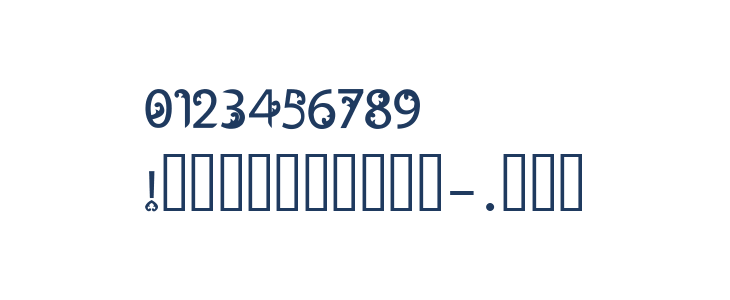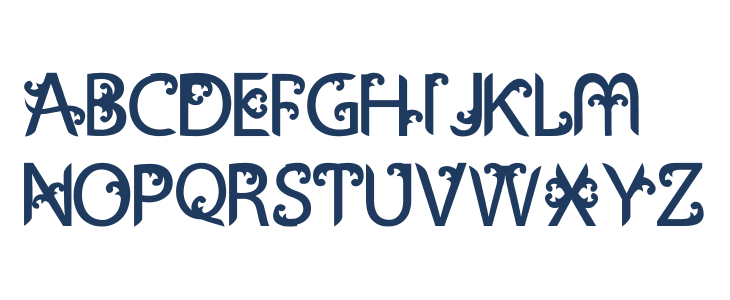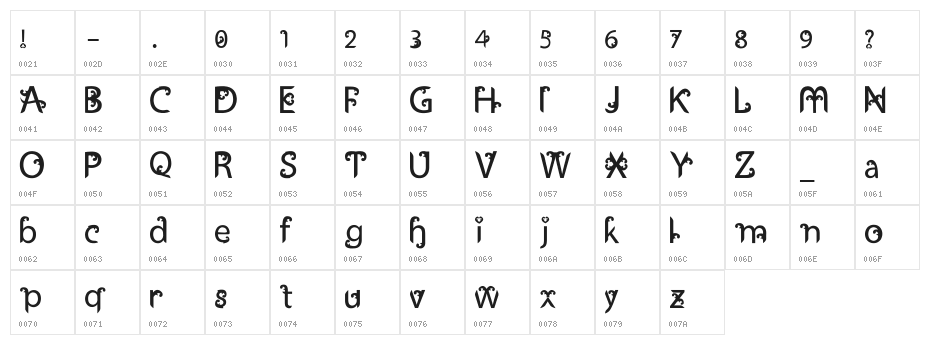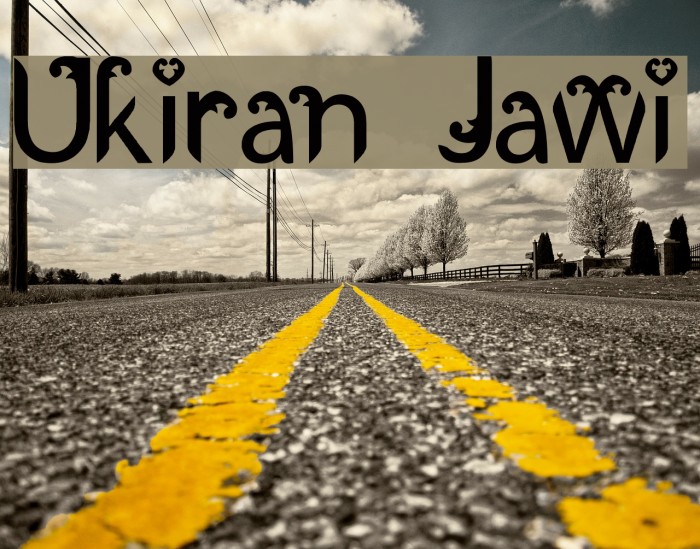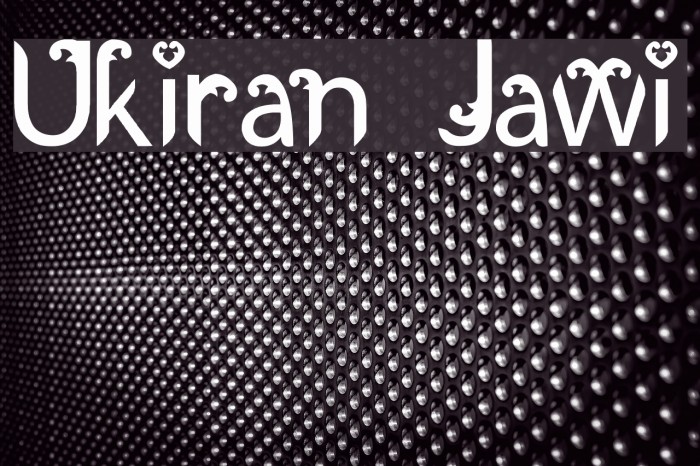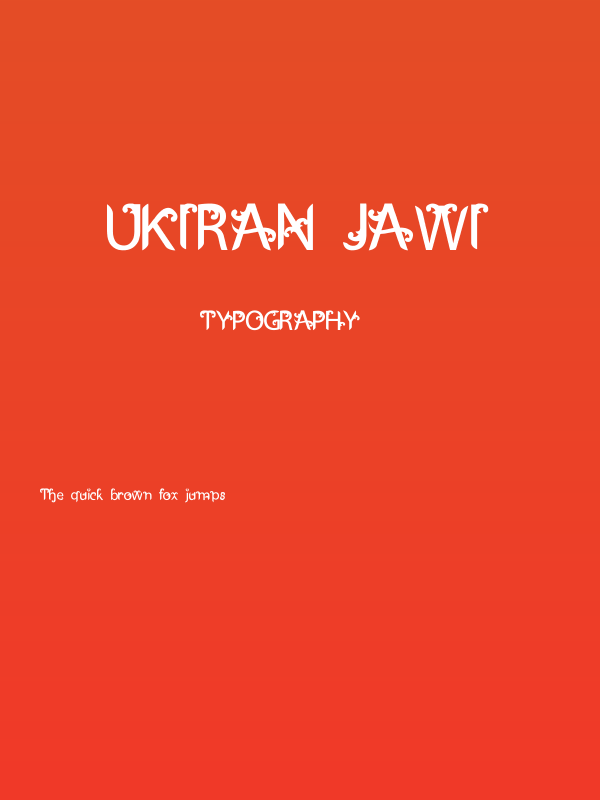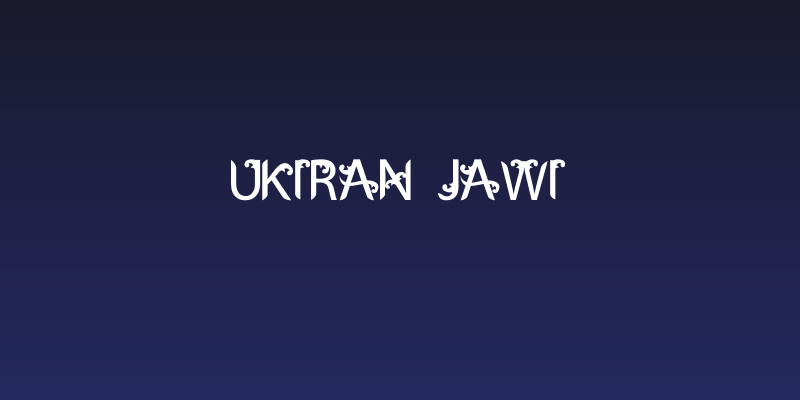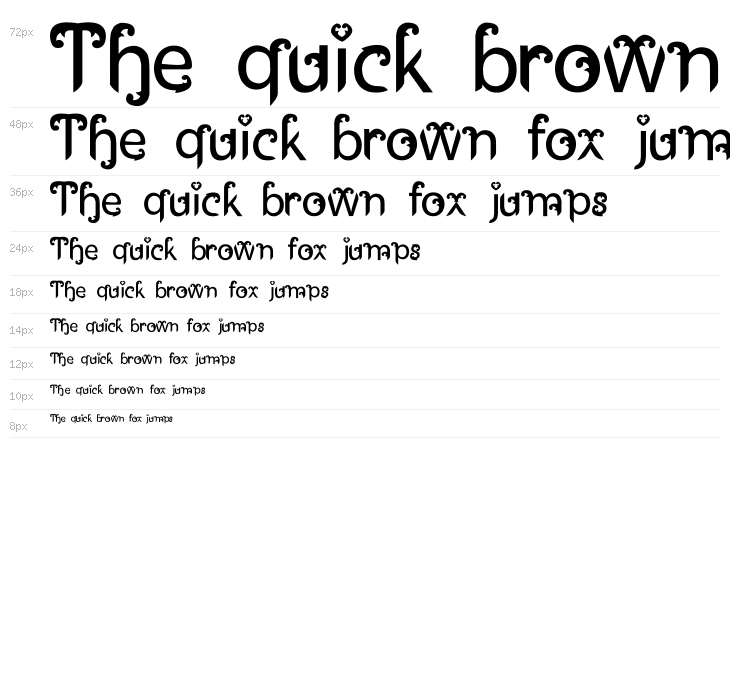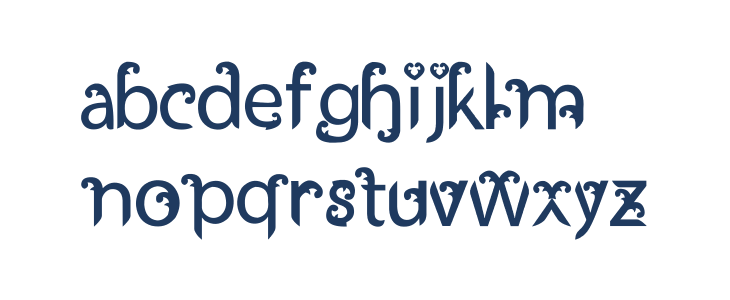
Ukiran Jawi Font
Ukiran Jawi Description
This font features a unique blend of traditional and decorative elements, inspired by Jawi script. Each character is adorned with intricate, ornamental details that evoke a sense of cultural richness and artistic flair. The uppercase letters are bold and prominent, while the lowercase letters maintain a consistent style with slightly softer curves. Numbers and special characters follow the same decorative theme, ensuring a cohesive look across all text. The font's distinct style makes it ideal for projects that require a touch of elegance and cultural depth.
| Proposed Projects | Ideal for cultural event posters, artistic invitations, branding for traditional products, and decorative headings. |